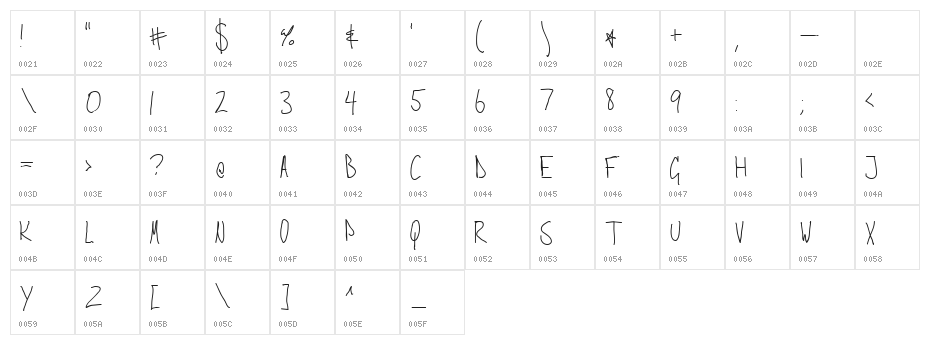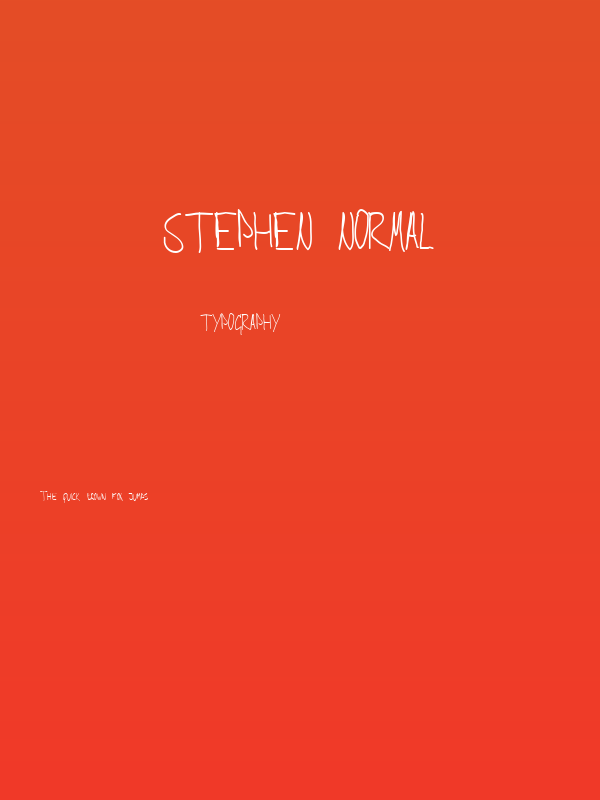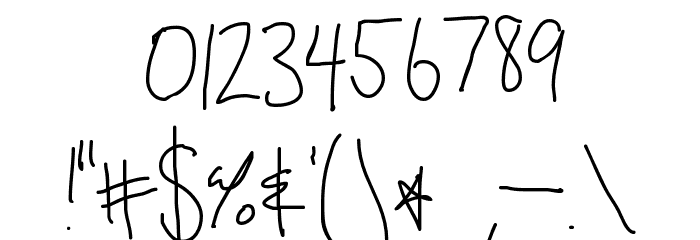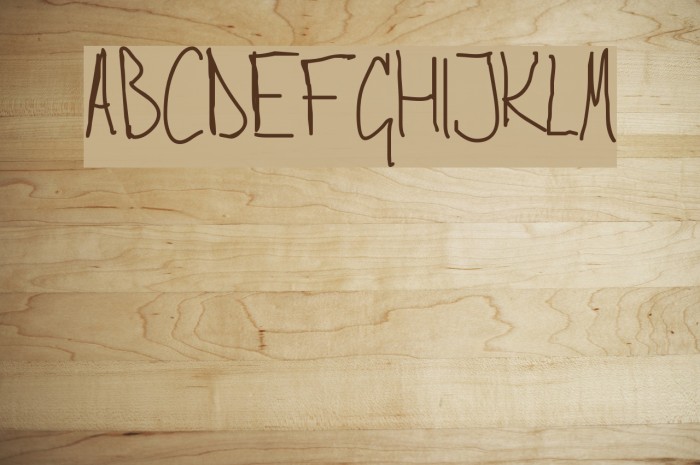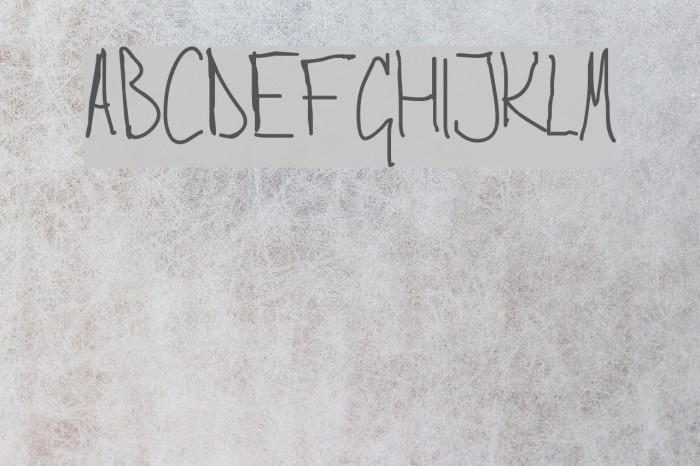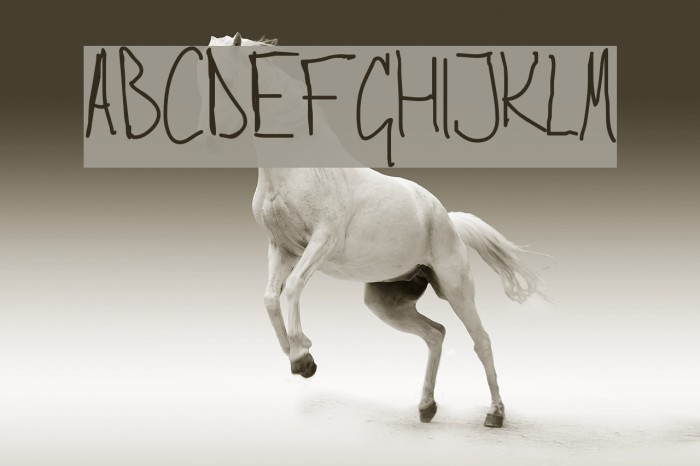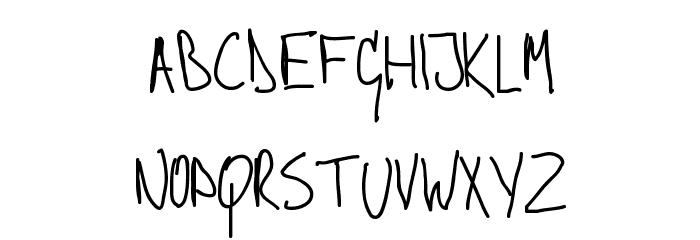
Stephen Normal Font
Stephen Normal Description
This font features a casual, handwritten style with a playful and informal appearance. The letters are slightly irregular, mimicking the natural flow of handwriting, which adds a personal touch to any text. The strokes are uneven, with varying thickness, giving it a dynamic and lively feel. The characters are tall and slender, with a slight slant, enhancing the handwritten effect. The spacing between characters is moderate, ensuring readability while maintaining the font's unique style. This font is ideal for projects that require a personal or creative touch, such as invitations, greeting cards, or artistic posters.
| Overall Style | Casual, Playful |
| Use Case | Headlines, Artistic projects, Personal communication |
| Proposed Projects | Ideal for invitations, greeting cards, artistic posters, and creative projects. |